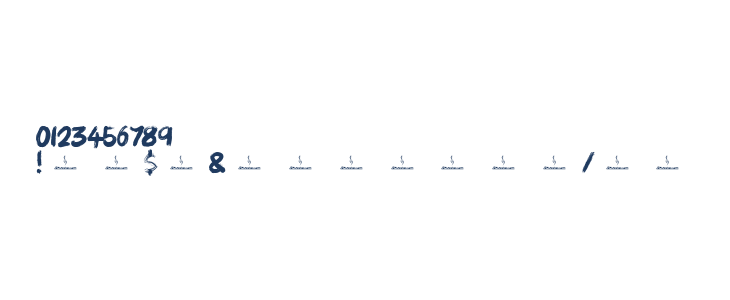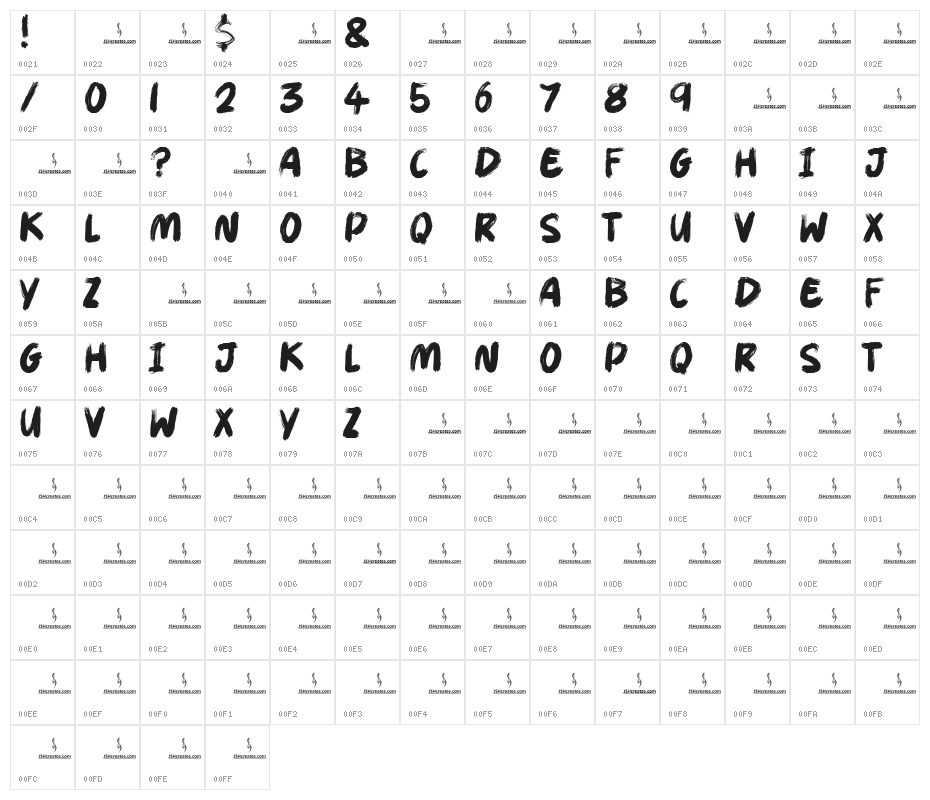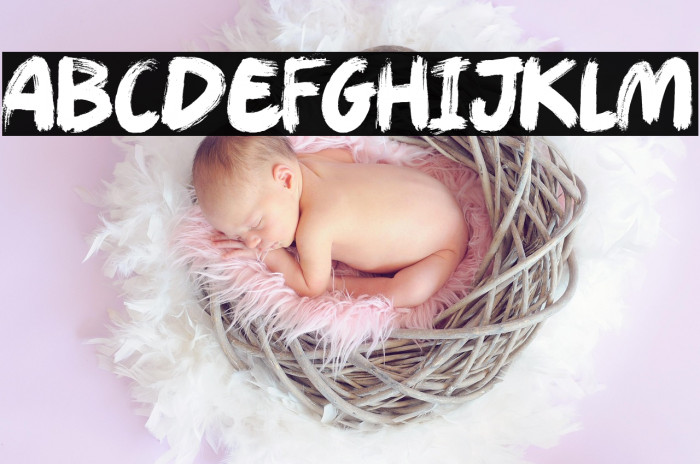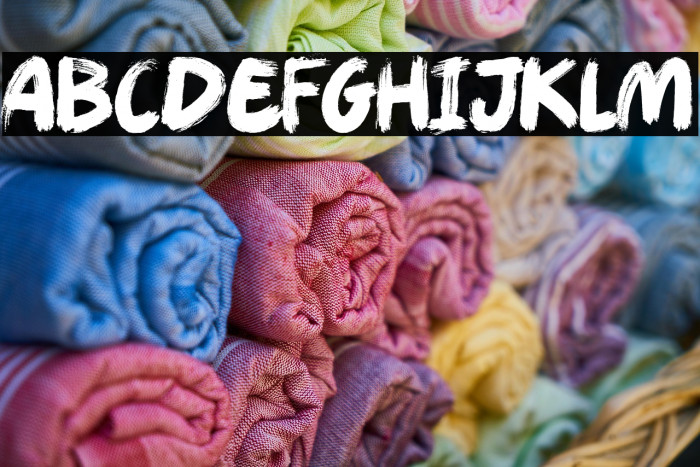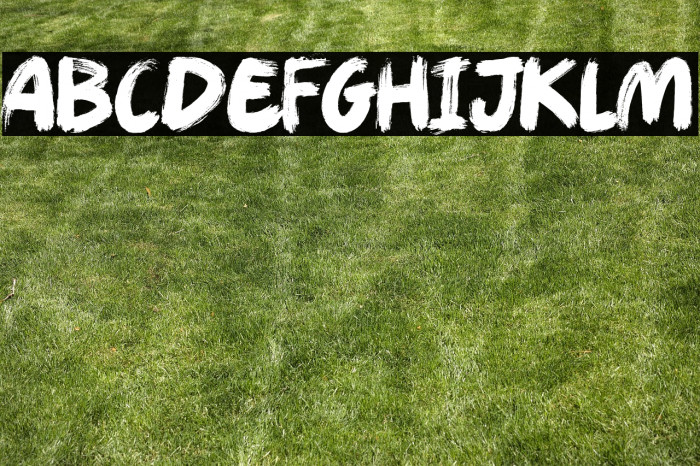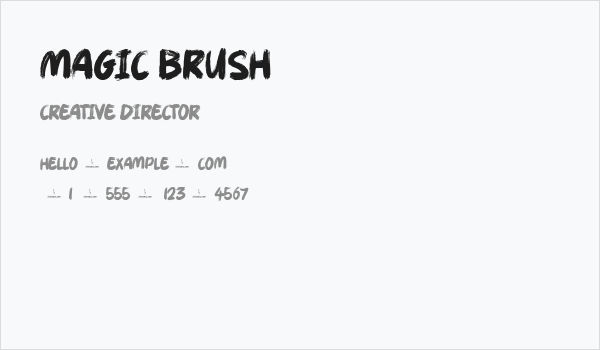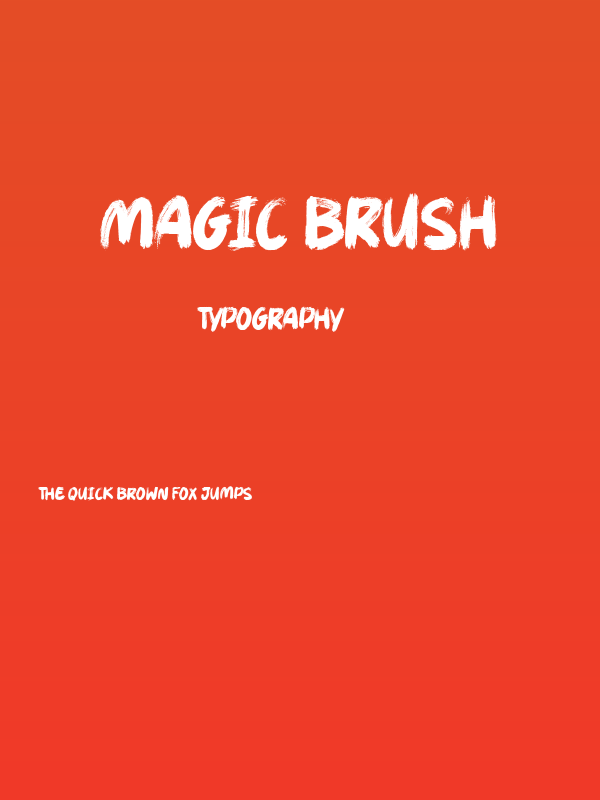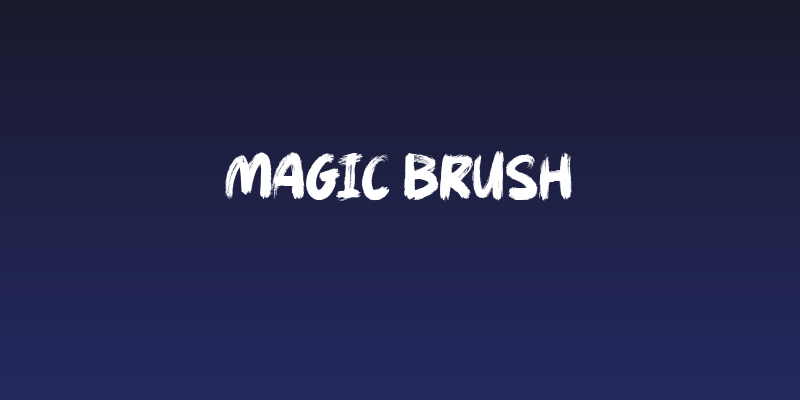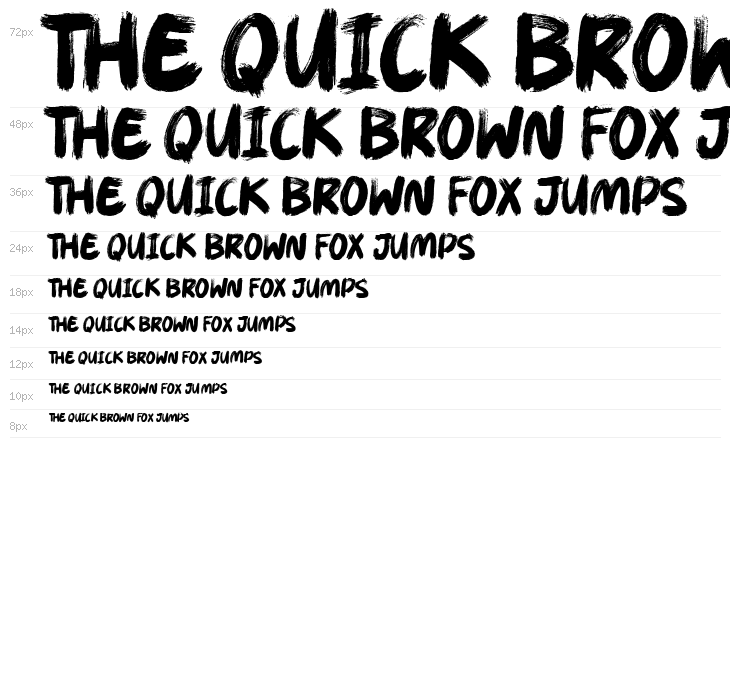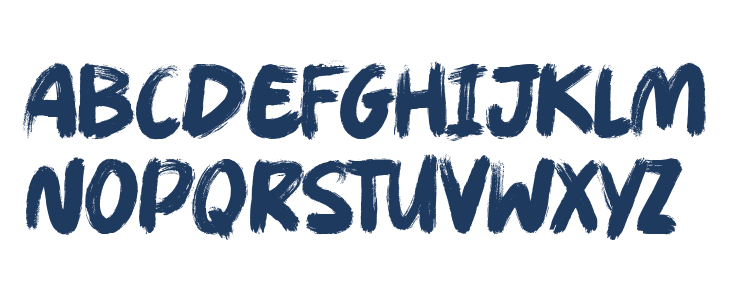
Magic Brush Font
Magic Brush Description
This font exudes a bold and expressive style, reminiscent of dynamic brush strokes. Each character is crafted with a sense of movement and energy, creating a lively and artistic appearance. The strokes are thick and uneven, adding to the hand-painted feel. The uppercase and lowercase letters maintain a consistent style, with the numbers and special characters following suit. This font is perfect for projects that require a personal touch or an artistic flair, such as posters, branding, or creative designs.
| Overall Style | Artistic, Expressive |
| Proposed Projects | Ideal for posters, branding, creative designs, and any project needing an artistic touch. |